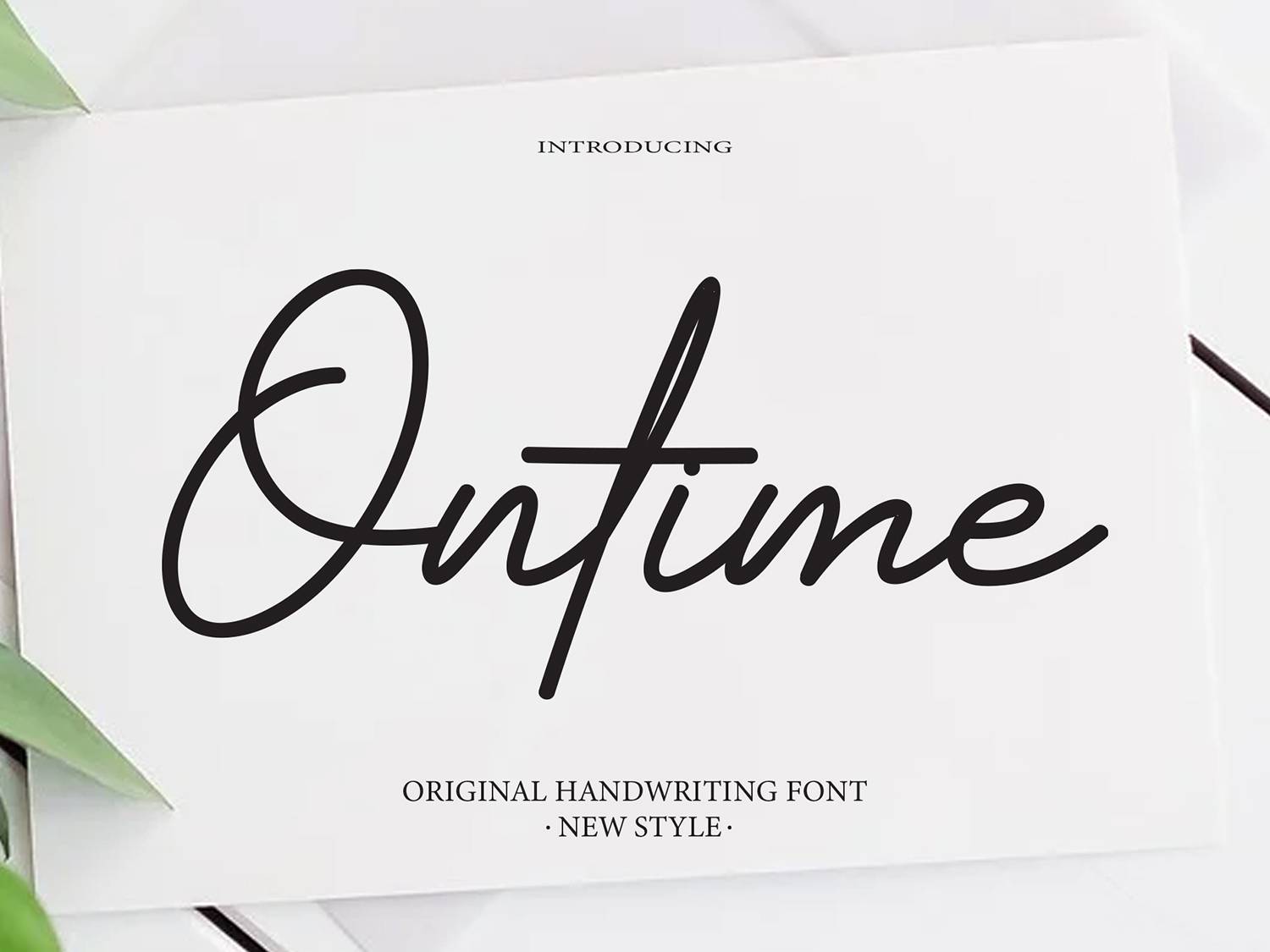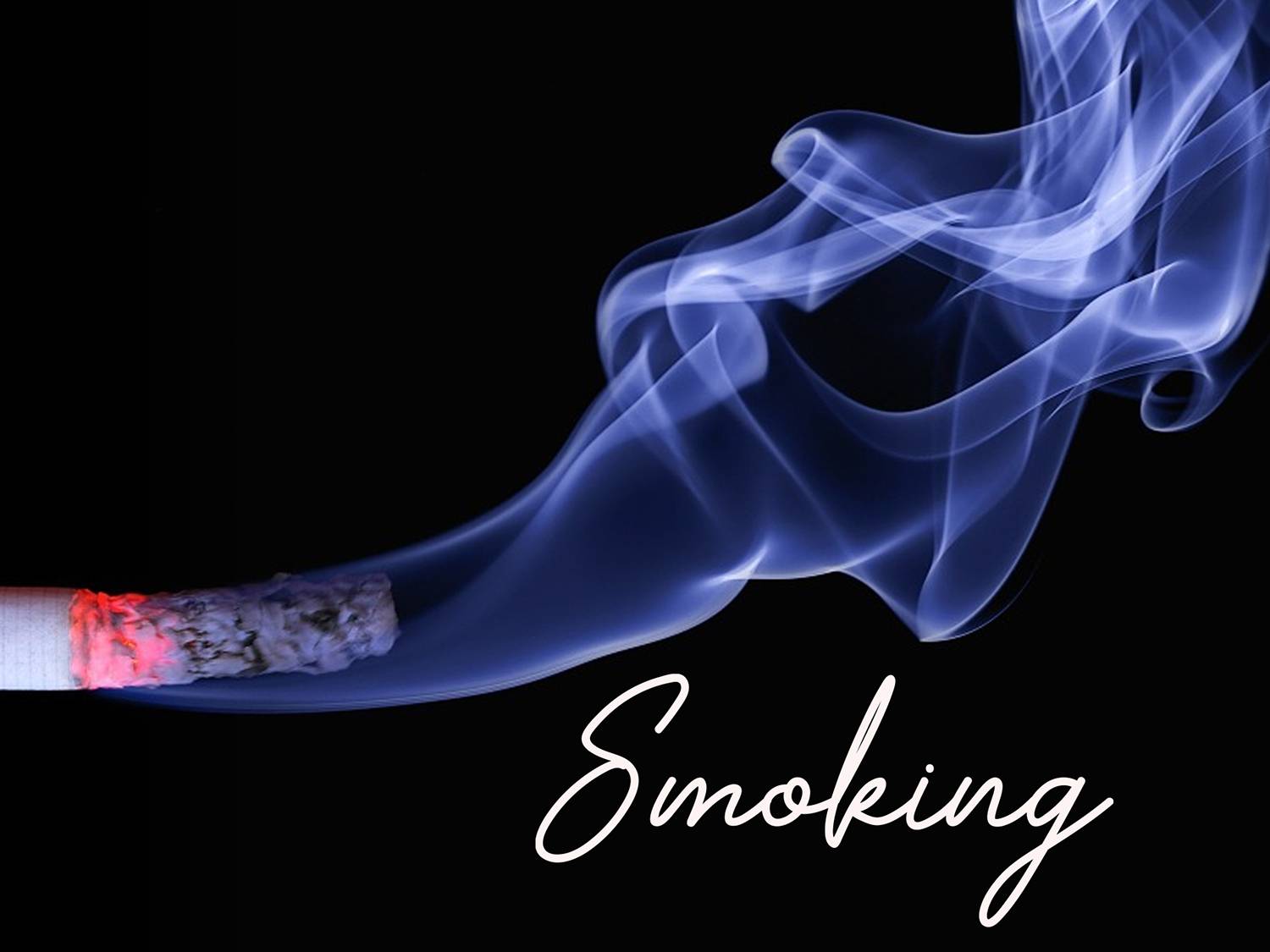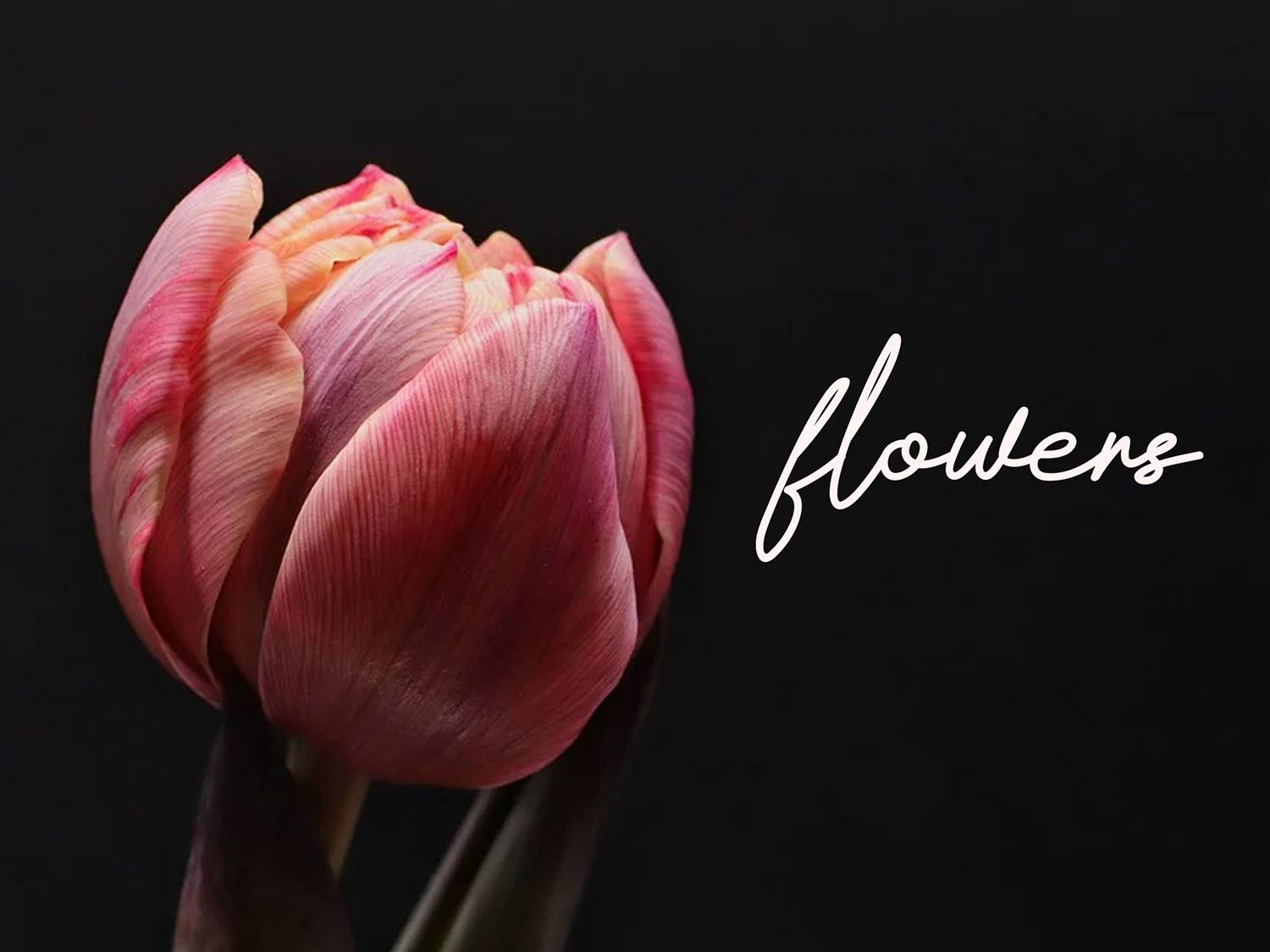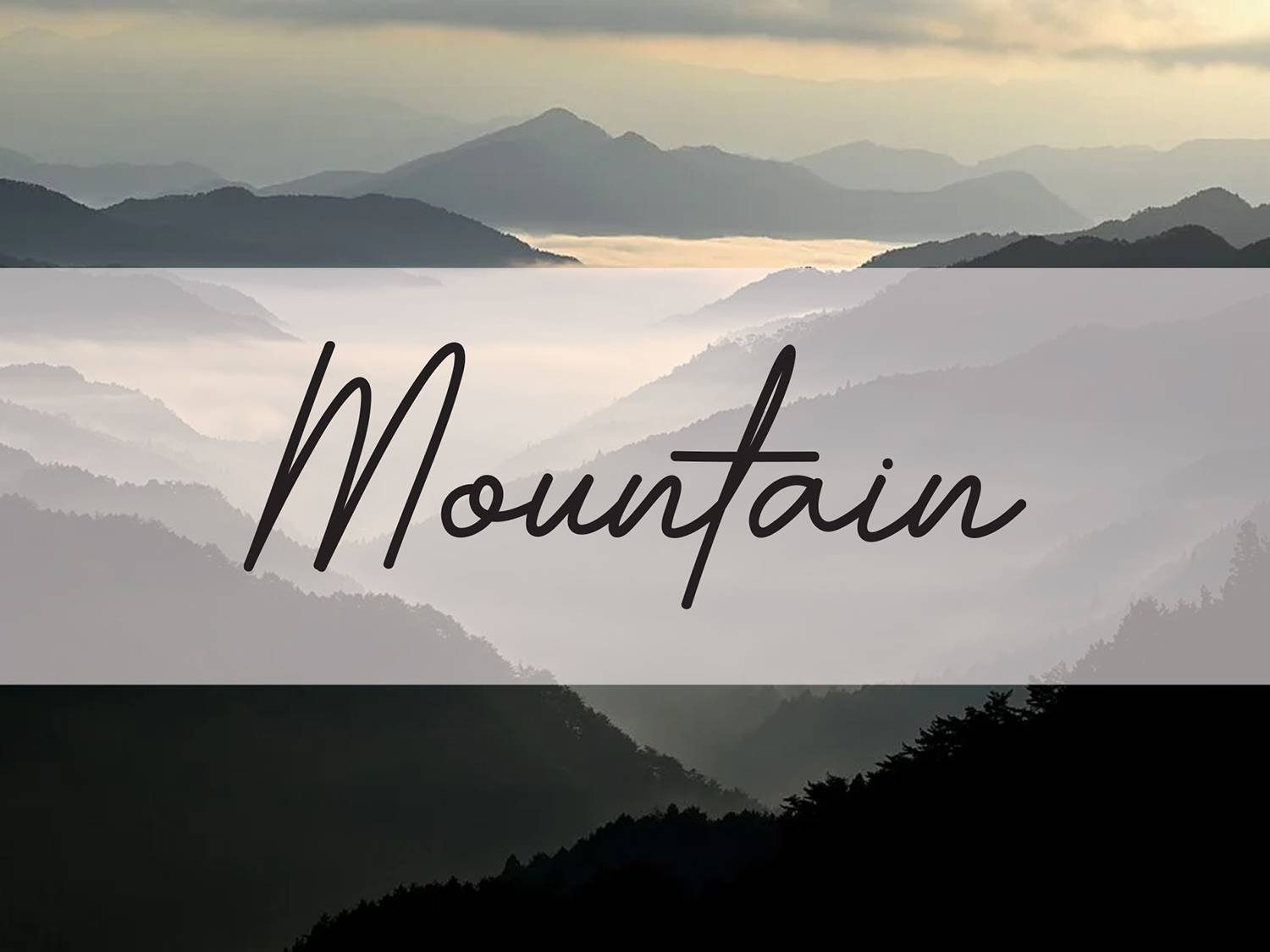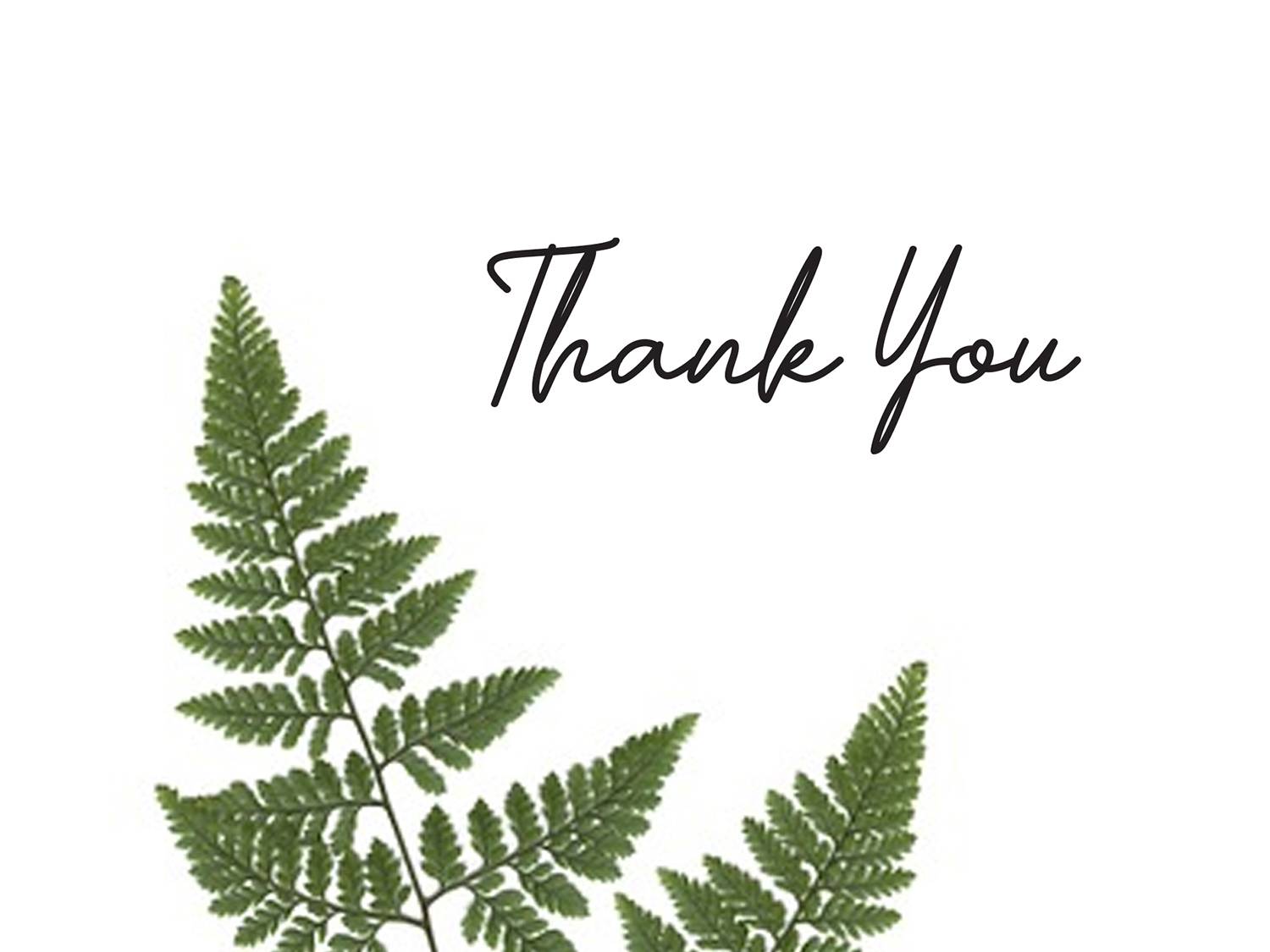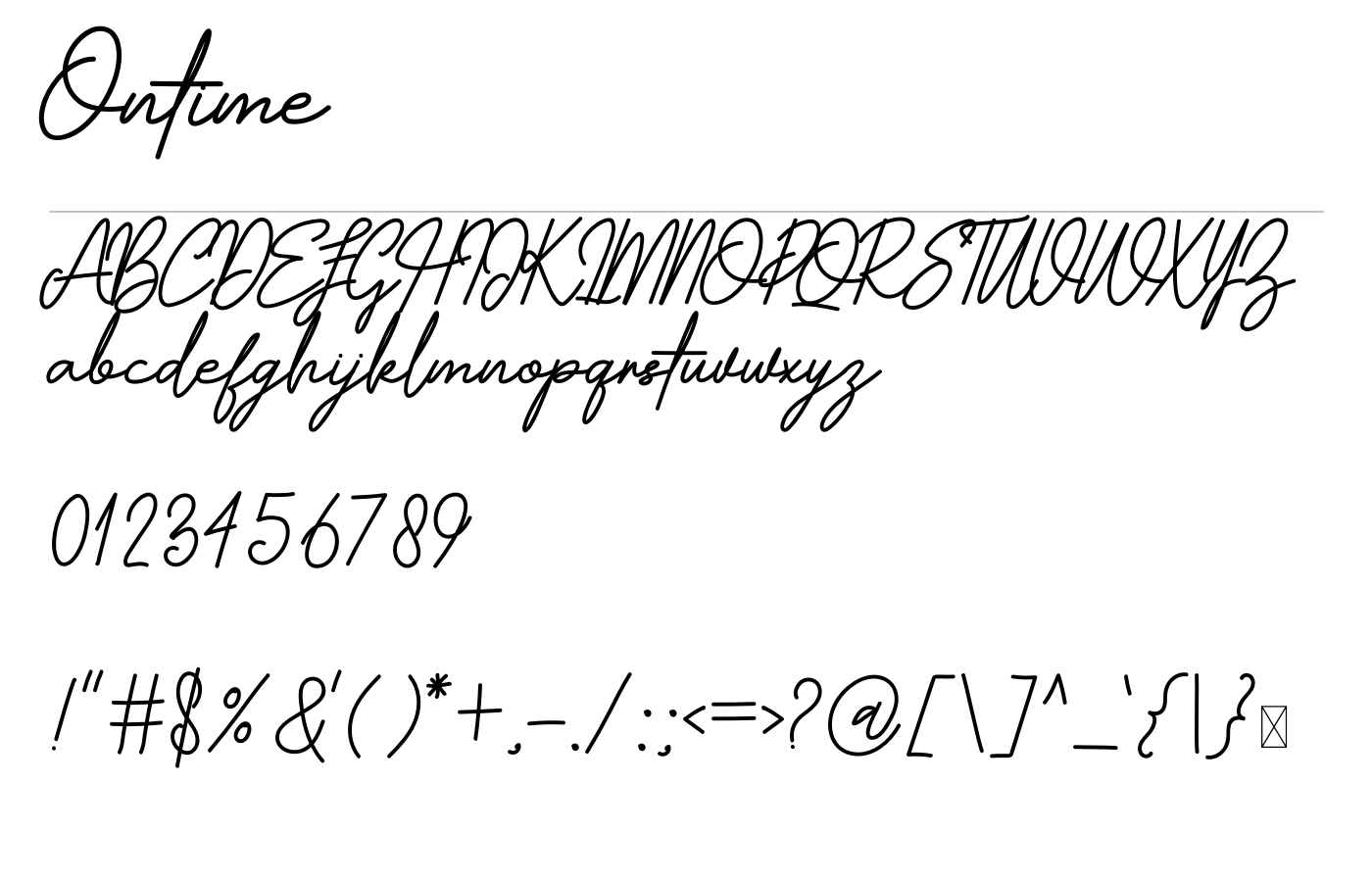
Ontime is a delicate script font that combines elegance with a natural handwritten feel, characterized by its slender strokes and fluid, connected letterforms. Its light weight and tall x-height give it a graceful, airy appearance, making it ideal for stylish branding, invitations, and sophisticated editorial use where a personal yet refined touch is desired. This font’s modern, casual charm works well for fashion, beauty, and lifestyle projects that aim to convey warmth and creativity.
Ontime Font
About Ontime Font